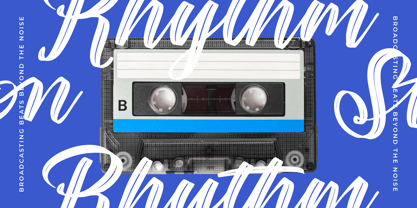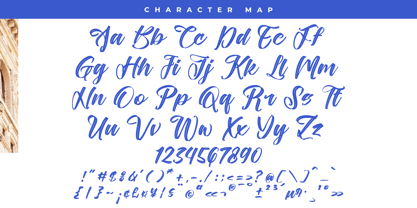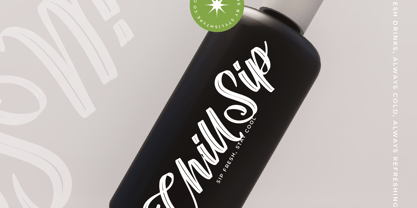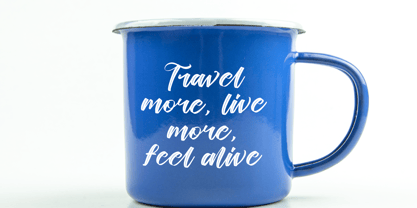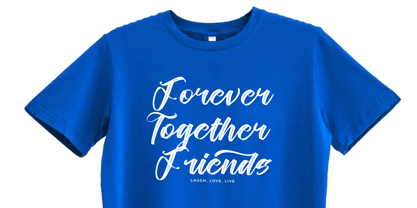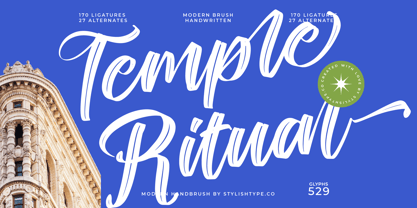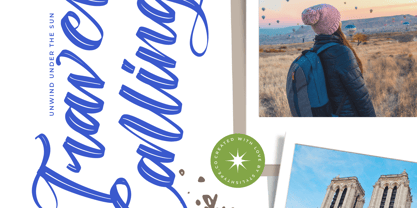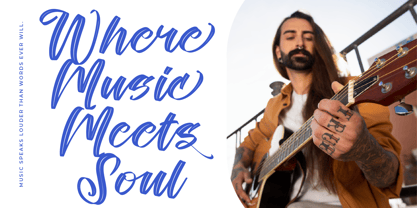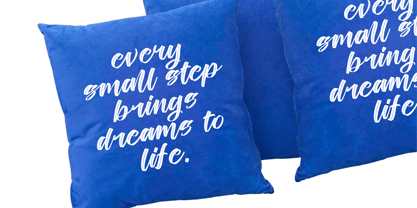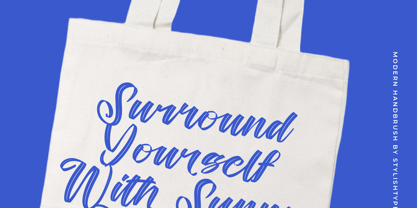
Temple Ritual
by Stylishtype Studio
The Temple Ritual Font Family was designed by Heru Utama Putra and published by Stylishtype Studio. Temple Ritual contains 2 styles and family package options. More about this family
Temple Ritual - Modern Handbrush Font , from Stylishtype, Suitable for any projects such as: logos, branding projects, homeware designs, product packaging, mugs, quotes, posters, shopping bags, t-shirts, book covers, name card, invitation cards, greeting cards, label, photography, watermark, special events, and all your other luxury and beautiful projects that need a Luxury Script taste.